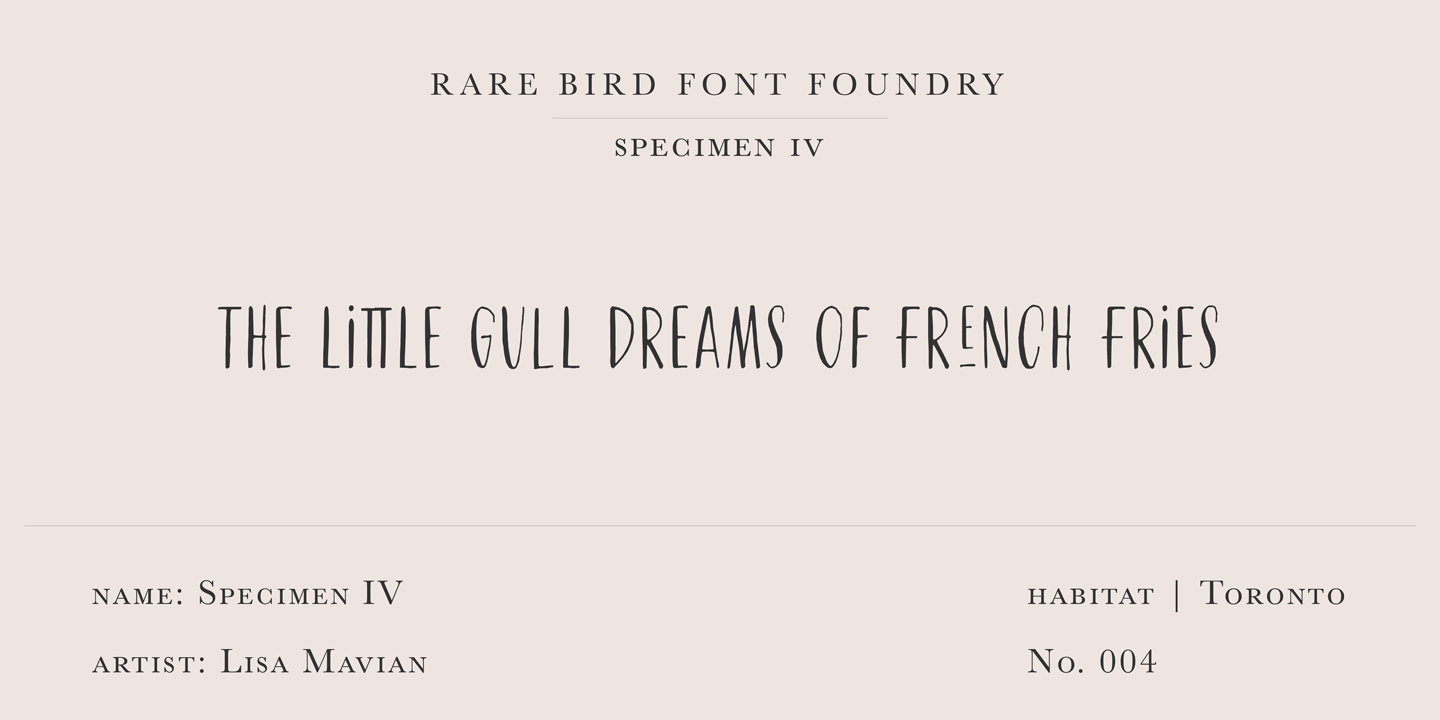
Rare Bird Specimen IV Font is excellent for artistic design applications including gallery posters, creative branding, experimental typography, avant-garde publications, artistic logos, contemporary art installations, fashion graphics, and cultural event promotions. This distinctive typeface brings sophistication and artistic flair to projects that demand unique visual expression.
What makes Rare Bird Specimen IV Font exciting is its unconventional design approach that blends scientific precision with artistic creativity. The font features unique letterforms inspired by specimen collections and natural history illustrations, creating a sophisticated aesthetic that feels both scholarly and contemporary. Its intellectual character appeals to design-conscious audiences who appreciate typographic innovation.
The Rare Bird Specimen IV Font family includes multiple stylistic variations such as Regular, Light, Bold, and specialty alternates with contextual ligatures and ornamental characters. These options provide extensive creative flexibility for designers who want to craft distinctive, memorable typographic compositions with scientific elegance.
This specialized display typeface represents the intersection of academic rigor and creative expression. Contemporary designers choose Rare Bird Specimen IV Font Free Download for projects that require intellectual sophistication and artistic distinction. The font's scholarly inspiration makes it perfect for cultural institutions, academic publications, and premium brands that value knowledge and creativity. Its unique character ensures memorable visual impact while maintaining the refined aesthetic that distinguishes exceptional design work.